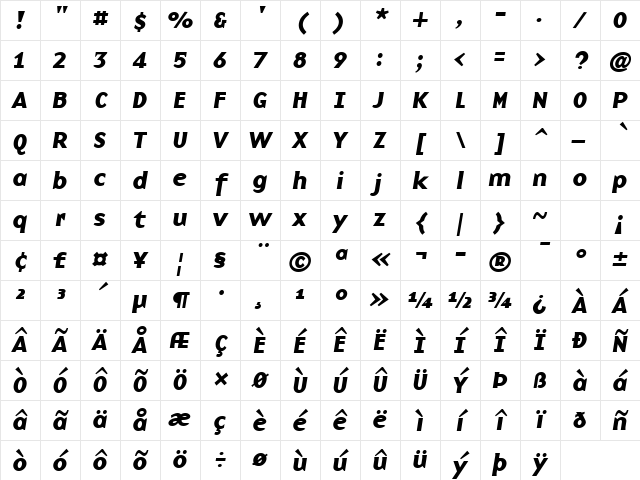
BaseNine Bold Italic
Design Context for BaseNine
BaseNine is a composed and adaptable typeface that performs quietly and consistently across a wide range of design contexts. The slanted form adds forward momentum and visual energy. Its bold stroke weight gives it real presence on the page.